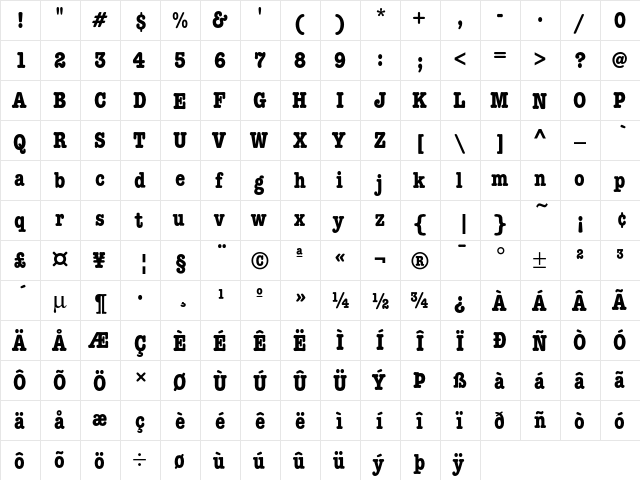
AmTypewriterEF BoldCond
Design Context for AmTypewriterEF Typeface
AmTypewriterEF uses fixed-width spacing throughout, giving it the structured, systematic character associated with coding environments and technical documentation. The heavy weight commands attention and anchors typographic hierarchies.
Well-suited to data-driven dashboards, coding tutorials, and any design that wants to reference the world of programming.
Pro Tip: Use AmTypewriterEF with slightly increased line-height for extended reading — fixed-width spacing can feel dense in longer passages without extra breathing room.